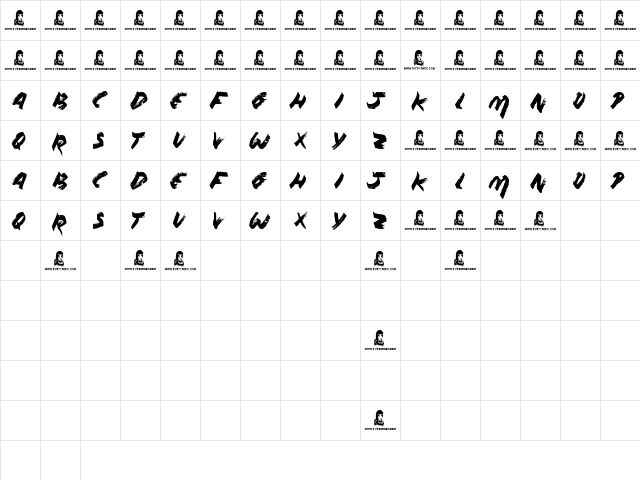
Without Notice Regular
| Foundry | Jonathan S. Harris |
| Designer | Jonathan S. Harris |
Design Context for Without Notice Typeface
Without Notice is a composed and adaptable typeface that performs quietly and consistently across a wide range of design contexts.